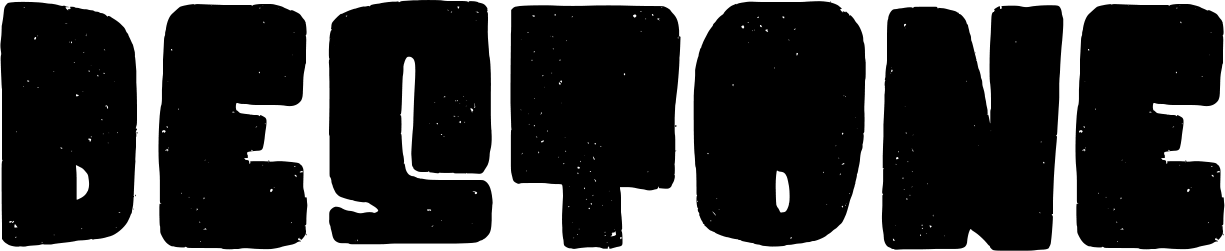
Destone Font
Inspired by the vintage vibes, Destone is the eroded fat font with a grunge style that belongs to a historical and classical dirty design. Its bold and thick letters place it at the center of attention for use in any advertisement, traditional poster, flyers, and other promotion.
Although the lowercase and numbers are absent in this chunky font, it will surely help design any headlines with its rough and speckled design.